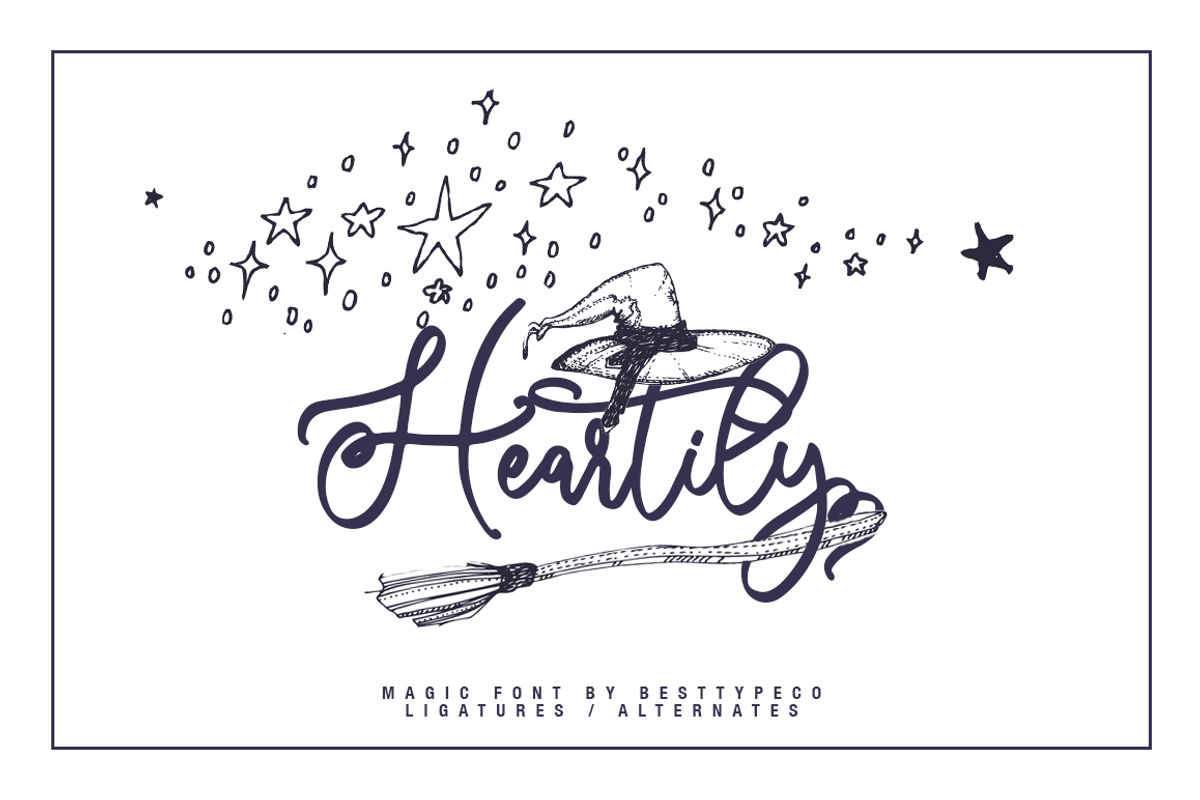
Heartly Font Free Download is a sweet and elegant script typeface that radiates warmth, charm, and romance. With its smooth curves, flowing strokes, and handwritten aesthetic, Heartly is perfect for wedding invitations, love notes, feminine branding, product packaging, and social media posts that need a soft, personal touch.
Carefully crafted to look like authentic handwriting, Heartly Font Free Download offers a lovely balance between playful and graceful. Its stylish ligatures and swashes make it a go-to choice for logos, quotes, and greeting cards that want to express emotion with elegance.
Whether you're designing for a romantic occasion or building a brand with a gentle, feminine vibe, Heartly brings personality and polish to every project. It pairs beautifully with minimalist sans-serifs or delicate serifs for a harmonious and modern look.